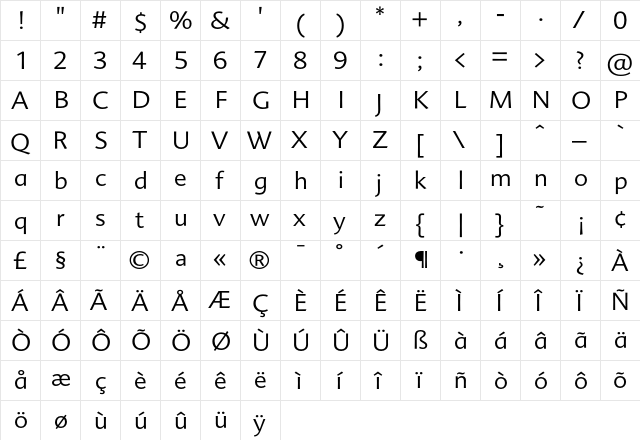
Advert-Light Regular Font Preview
Advert-Light Regular
Advert-Light Regular Font Details
Design Context for Advert-Light Typeface
Advert-Light offers clean, dependable letterforms without strong stylistic allegiance, making it a practical choice for designers who need flexibility. Its slender proportions lend an understated elegance to any composition.